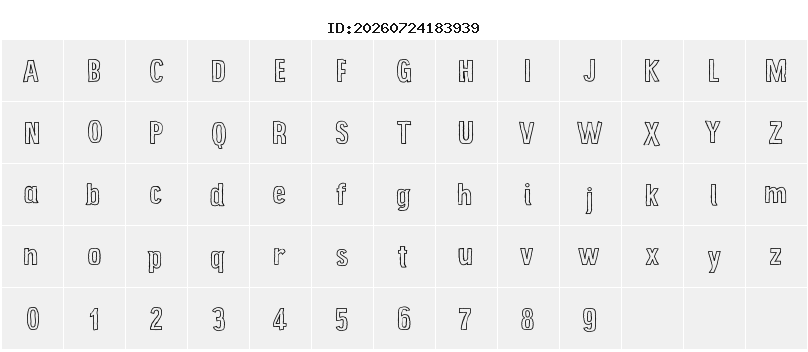
Grunge Poster Preview
• Font Name: Grunge Poster
• Full Font Name: Grunge Poster
• Version: Version 1.00 February 15, 2014, initial release
• Designer: © Galdino Otten. 2013. All Rights Reserved
• Manufacturer: Galdino Otten
About Grunge Poster.ttf
Grunge Poster.ttf is a modern, elegant sans-serif font designed for ultimate readability and visual harmony. Perfect for branding, headlines, web design, and print materials.